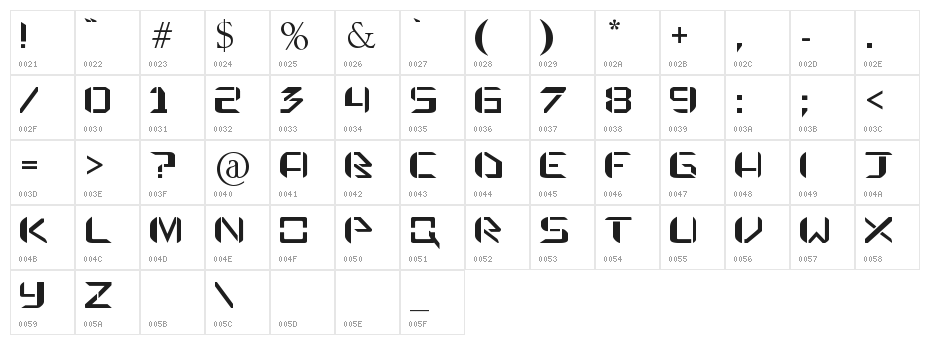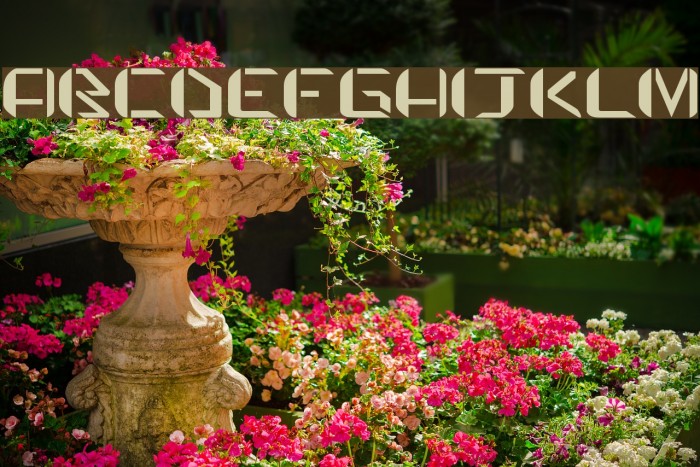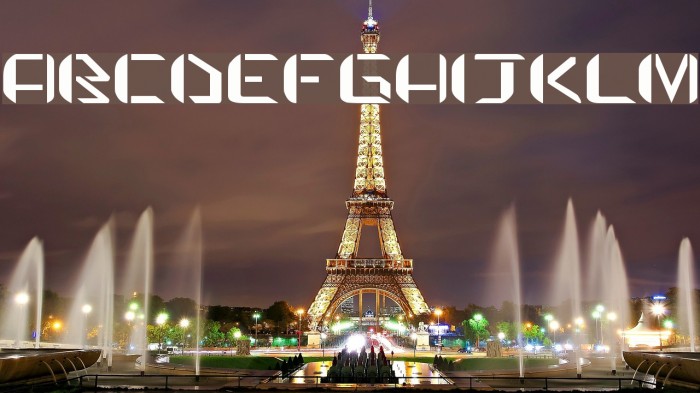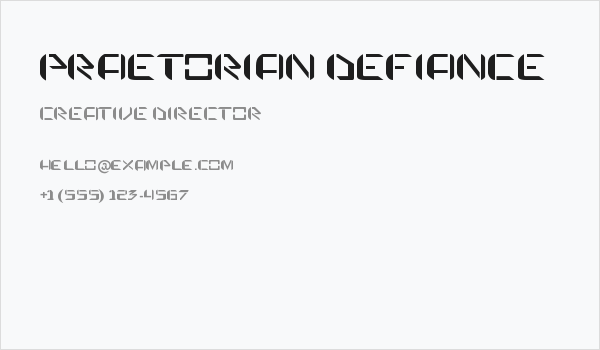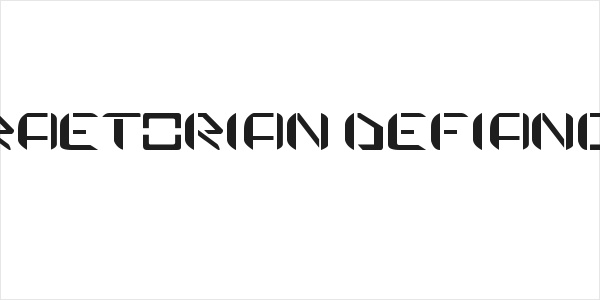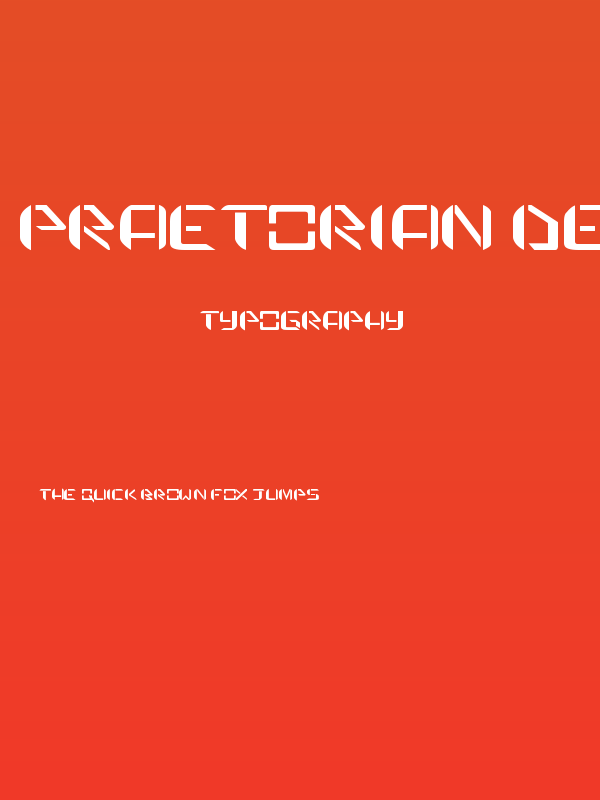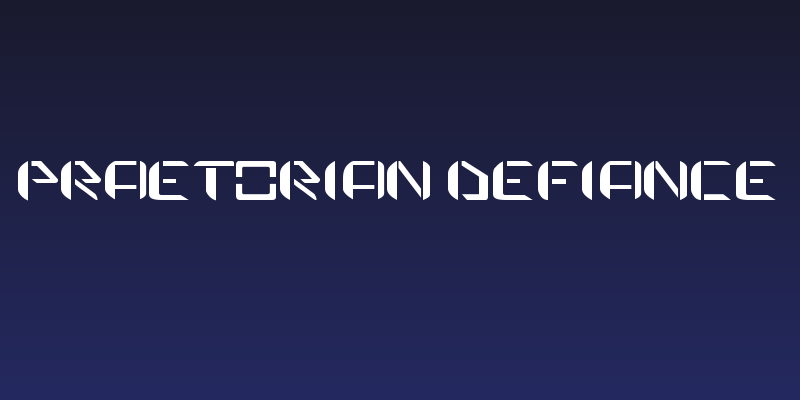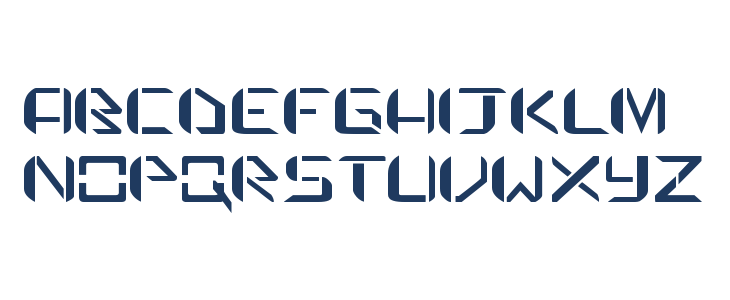
praetorian defiance Font
praetorian defiance Description
This font features a bold, futuristic design with angular, geometric shapes that create a sense of movement and energy. The letters are constructed with sharp angles and straight lines, giving it a modern and edgy appearance. The uppercase and lowercase letters maintain a consistent style, with the same angular cuts and bold presence. Numbers and special characters follow the same design principles, ensuring a cohesive look across all characters. This font is ideal for projects that require a strong, impactful visual presence.
| Proposed Projects | Ideal for sci-fi themed designs, video game graphics, posters, and branding that requires a modern, edgy look. |